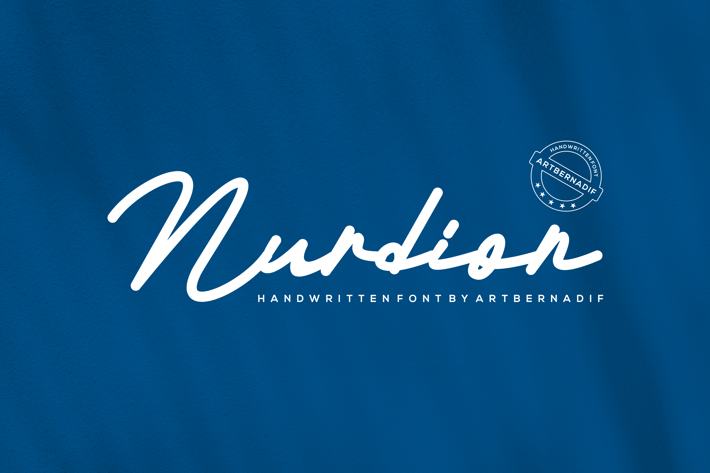
Nurdion Font
Introducing our new product Nurdion Font - Modern Font
Nurdion Font- Modern Font is a bold and authentic display font. The font is suitable for any branding project like logo, t-shirt printing, esport, and many more.
outstanding in a wide range of contexts.
Nurdion Font- Modern Font is a bold and authentic display font. The font is suitable for any branding project like logo, t-shirt printing, esport, and many more.
outstanding in a wide range of contexts.